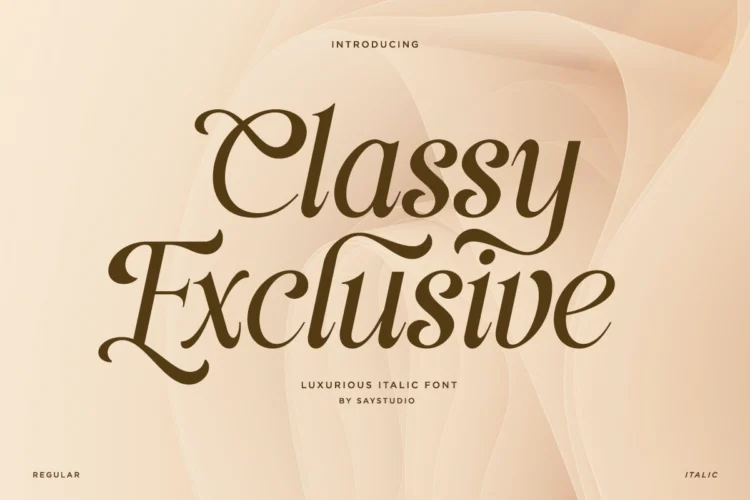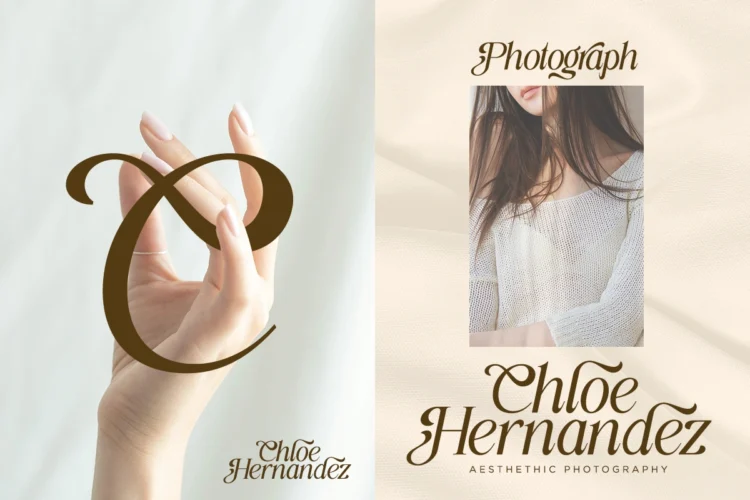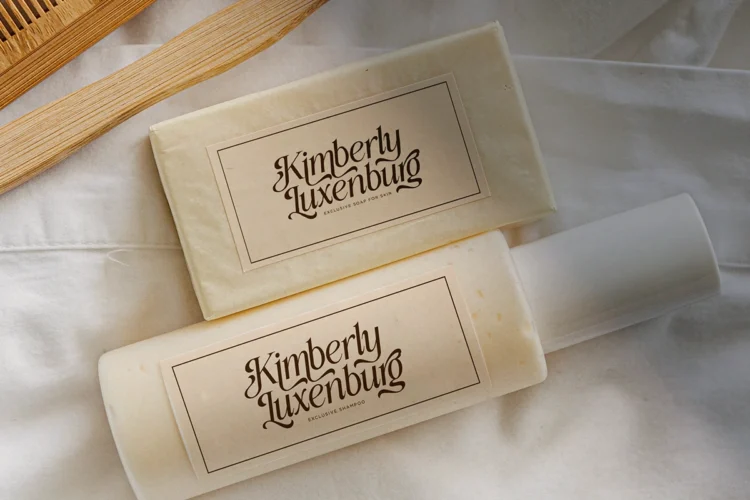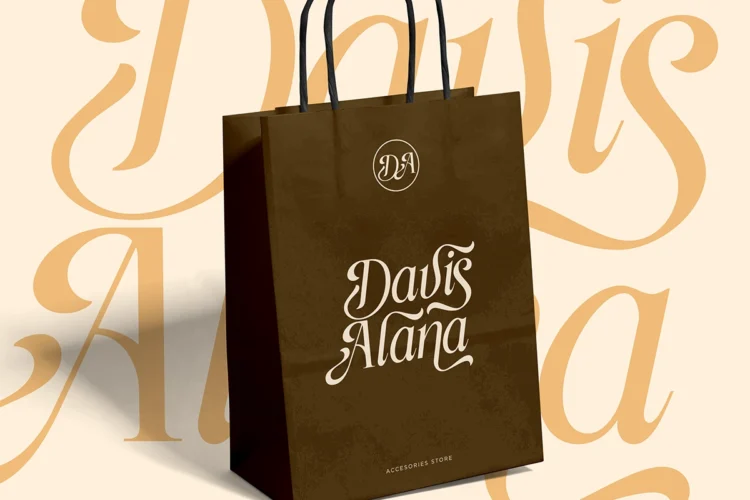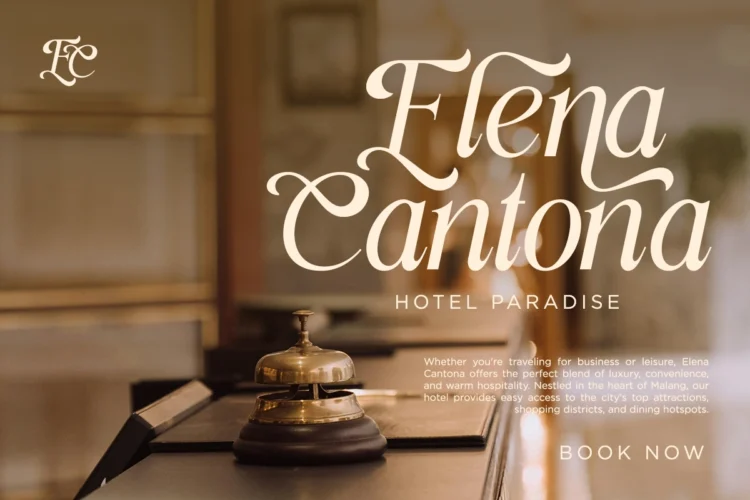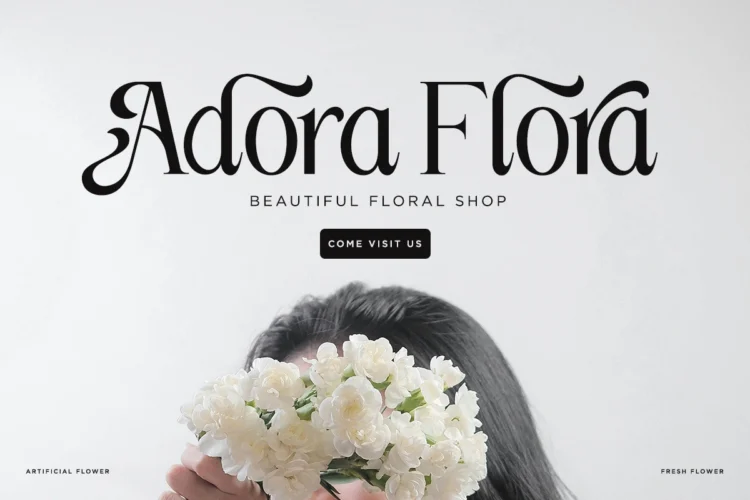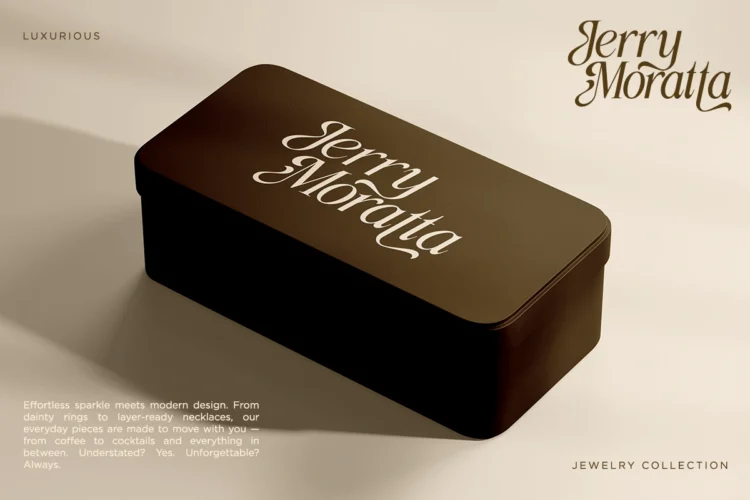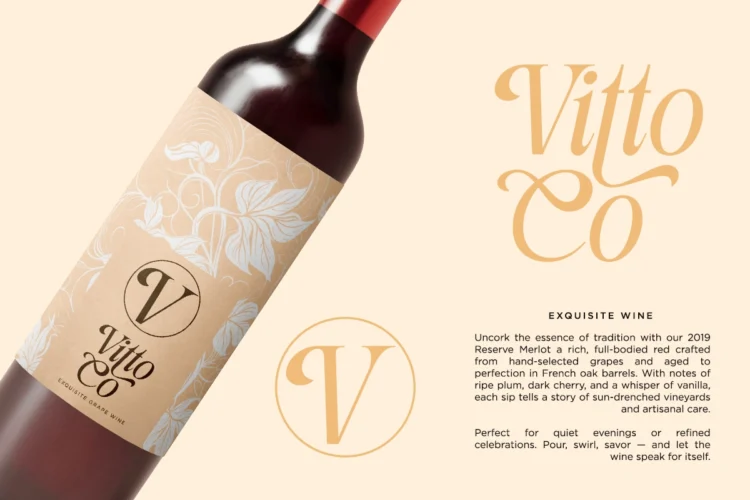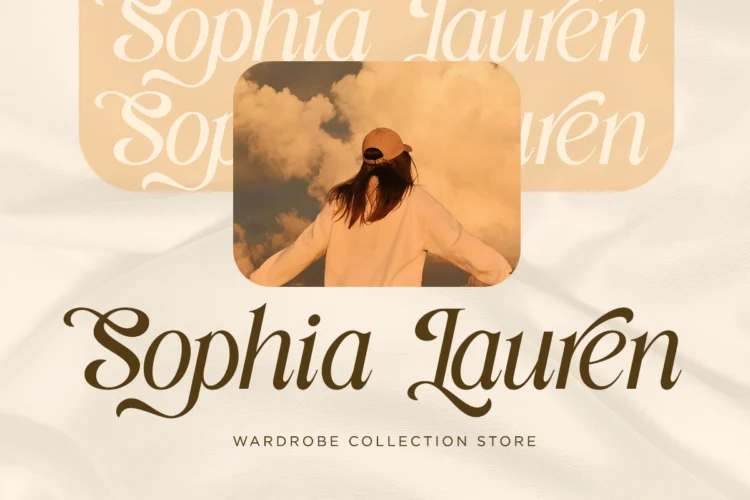
Classy Exclusive
Classy Exclusive is a beautifully crafted italic serif font that exudes sophistication, elegance, and timeless charm. Designed with high contrast strokes and graceful curves, this typeface delivers a luxurious aesthetic that is perfect for premium branding and upscale design projects.
Whether you're working on fashion editorials, product packaging, high-end logos, or wedding invitations, Classy Exclusive offers a refined and exclusive feel that elevates every composition it touches.